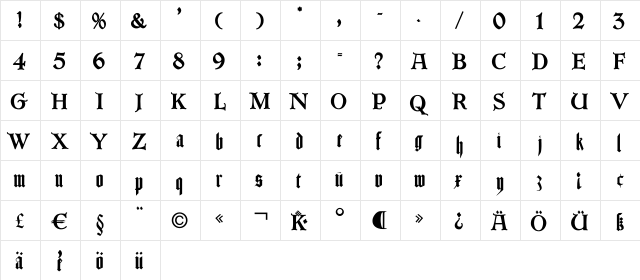
LombarDuerer Regular
| Designer | Manfred Klein |
Design Context for LombarDuerer Typeface
LombarDuerer is a composed and adaptable typeface that performs quietly and consistently across a wide range of design contexts.